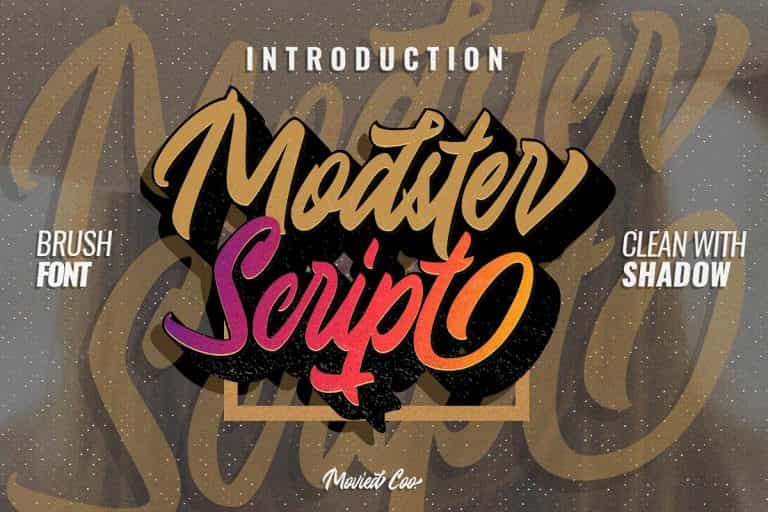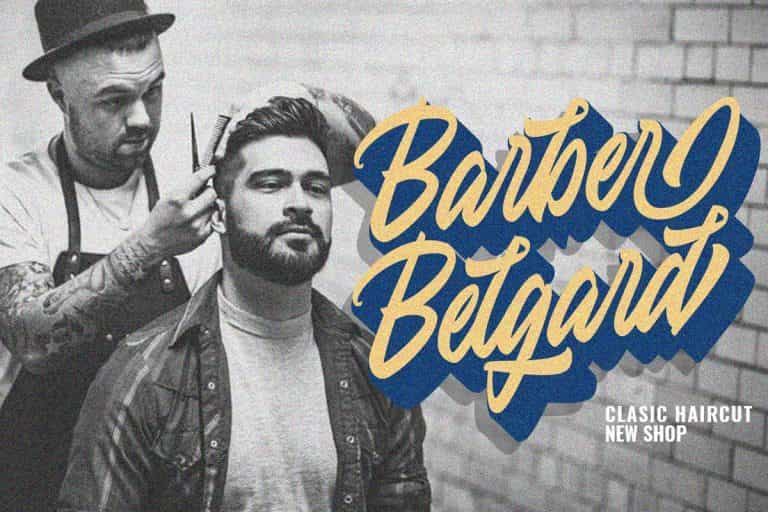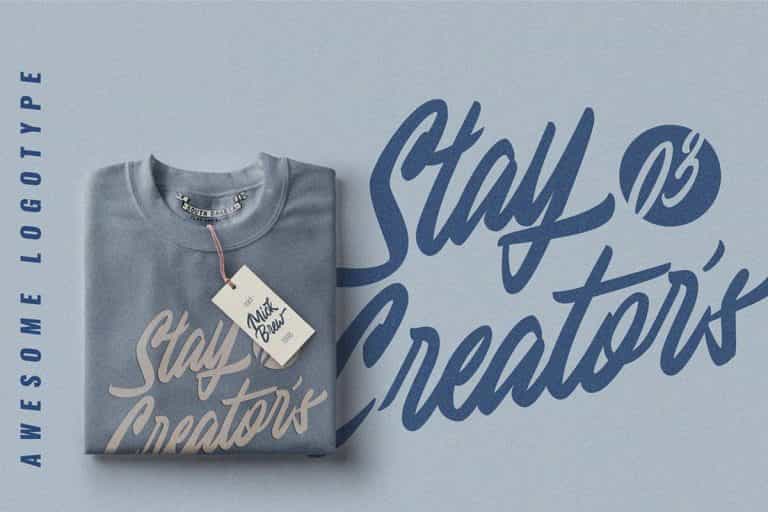
Introducing Modster Font! It is developed and distributed by Moovied Co. Modster Script Font is a group that was born from the urban style created by hand lettering with love. Modster has a set of styles, options for the present and extra shadow. This typeface is perfect for branding, logos, handwritten quotes, product packaging, headers. posters merchandise , social media books / cover titles special events etc.